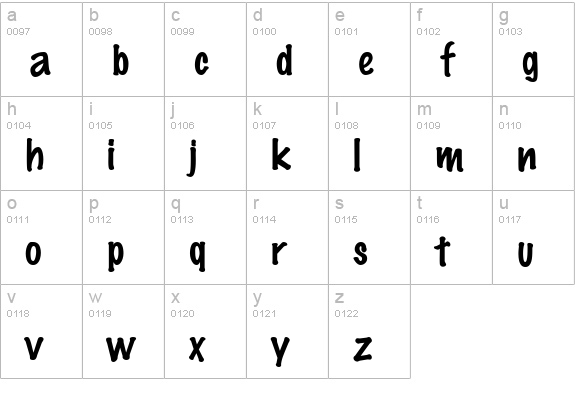
Scrawlin SSi Font Details
Scrawlin SSi font is a captivating and versatile typeface that effortlessly captures the essence of hand-drawn lettering. With its unique and organic strokes, this font exudes a sense of creativity and authenticity, making it perfect for a wide range of design projects. Whether you want to add a whimsical touch to your invitations, create eye-catching headlines for a magazine, or give a personal touch to your branding materials, Scrawlin SSi font is the perfect choice. Its irregular shapes and uneven lines give it a charming and handmade feel, making every letter feel like a work of art. What's more, Scrawlin SSi font is not only visually appealing but also conveniently free to download. You can easily access this font at FontsMarket.com, where you can explore its full potential and unleash your creative ideas. So why settle for ordinary when you can have a font that adds a touch of uniqueness and character to your designs? With Scrawlin SSi font, you no longer need to worry about creating handwritten elements from scratch or searching for the perfect script font that fits your vision. This font effortlessly combines the best of both worlds, offering the convenience of digital design with the charm of hand-drawn aesthetics. So, whether you're a professional designer, a DIY enthusiast, or someone who simply appreciates the art of typography, Scrawlin SSi font is a must-have in your collection. Its versatility, visual appeal, and the fact that it is freely available to download make it an irresistible choice for any design project. Explore the endless possibilities and let Scrawlin SSi font bring your ideas to life with its unique and captivating charm.